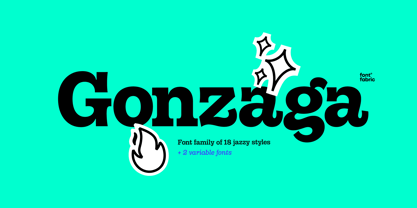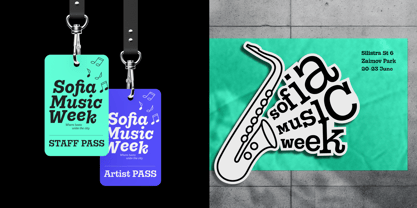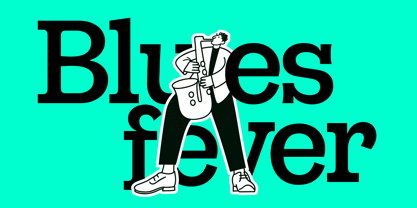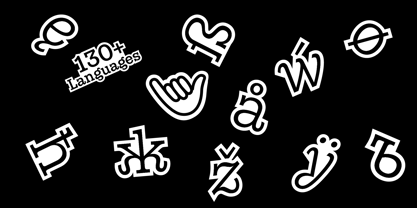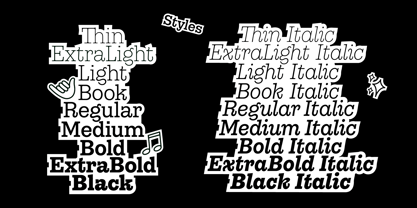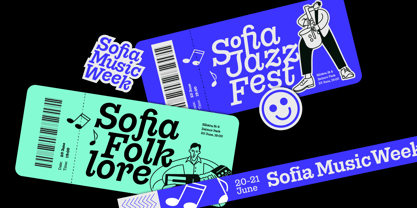
Gonzaga
The Gonzaga Font Family was designed by Vika Usmanova, Kiril Zlatkov, Ivelina Martinova and published by Fontfabric. Gonzaga contains 20 styles and family package options.
Gonzaga is a Serif typeface designed for headlines, branding, packaging, editorial layouts, and music or festival promos. Its unique blend of classic Clarendon robustness with modern editorial expressions and expressive ligature sets makes it an excellent choice for designers and brands seeking a bold, charismatic serif with a strong visual personality. With a total of 18 styles and 2 variable fonts, advanced OpenType features, and multilingual support, Gonzaga ensures versatility and high-quality typography for every project. Whether you’re working on poster art, album covers, food & beverage packaging, magazine design, or digital headers, Gonzaga delivers a bold and steady skeleton with a powerful editorial tone and flexible design options.